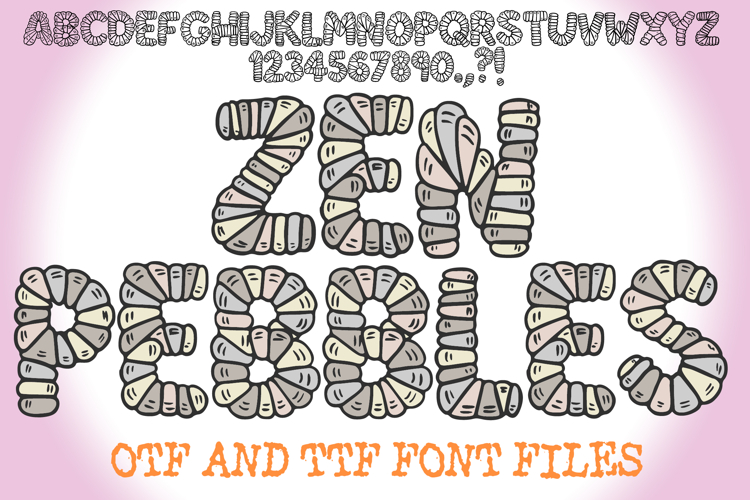
Zen Pebbles Font is a playful and organic display typeface inspired by stacked stones and natural balance. Each letter is designed to look like pebbles carefully piled together, giving your projects a calming, earthy, and creative vibe. Perfect for nature-themed posters, wellness and yoga branding, kids’ projects, packaging, crafts, and handmade designs, this unique font brings a touch of natural harmony to your work. Includes OTF and TTF files for full compatibility with all major design software.